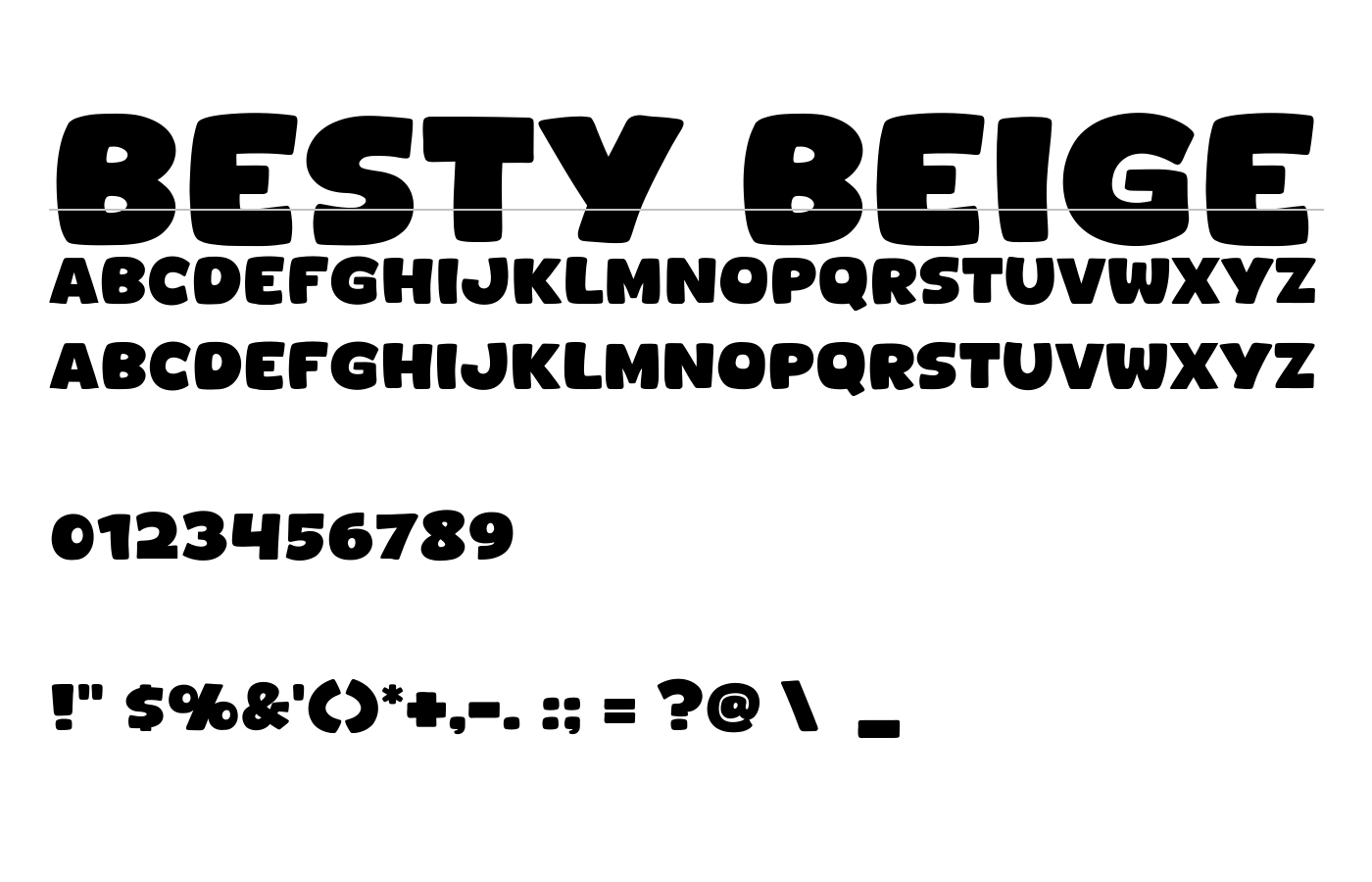
Besty Beige is a bold, chunky sans serif font with a playful and friendly character. Its rounded, irregular shapes and thick strokes give it a casual, approachable feel, making it ideal for fun branding, children’s projects, and informal headlines. This font works well where a strong, inviting presence is needed without sacrificing legibility.
Besty Beige Font
About Besty Beige Font
| Designer | Khurasan & Jalembe |